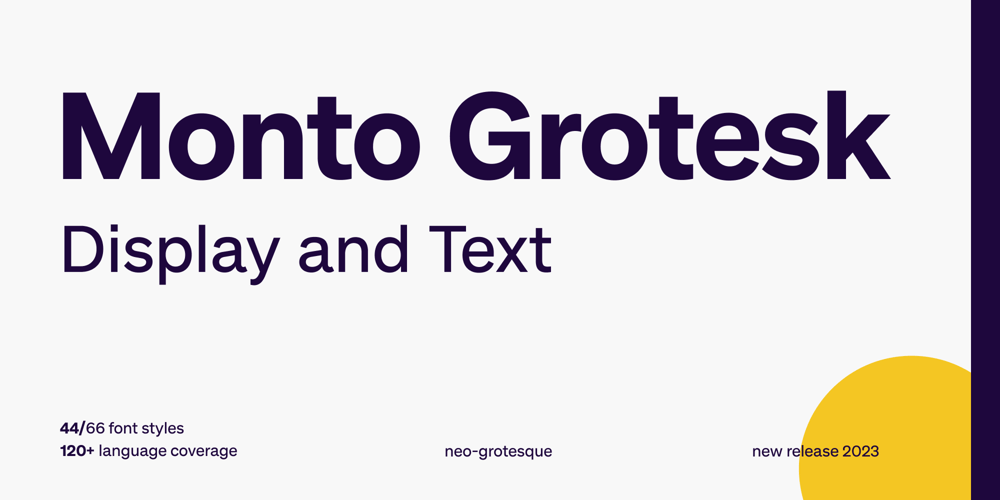
Monto Grotesk Font Family was designed by Lucas Tillian and published by Lucas Tillian. Monto Grotesk contains 44 styles and family package options. Monto is a superfamily — this is the Grotesk + Grotesk Display part of it.Monto Grotesk is a modern sans serif typeface that combines the strengths of the neo-grotesque and geometric genres. While maintaining an established and trusted look, the design is influenced by a contemporary geometric aesthetic, making it a modern yet timeless companion.The Grotesk is split into two sub-families (Monto Grotesk and Monto Grotesk Display). While Grotesk is intended to be used in long paragraphs and copy text, Grotesk Display is perfect for striking headlines. To achieve maximum legibility, Grotesk emphasizes its characters vertical strokes, focusing on a coherent rhythm and having more open counters in contrast to Display which features a reduced tracking and more geometric and round forms. Furthermore, individual characters change their entire shape to best suit their areas of operation.